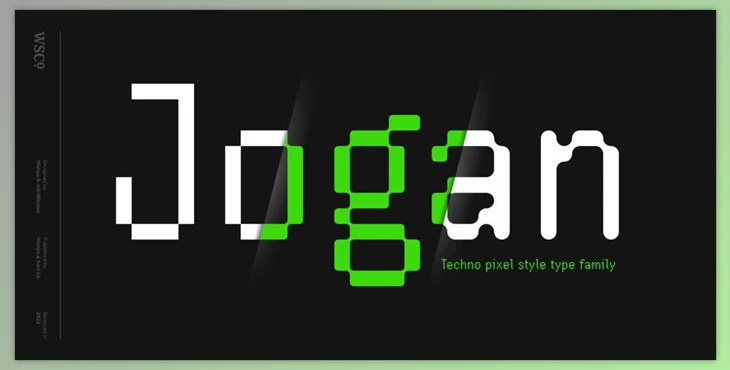
Jogan Font Family:
Influenced by the beginnings of video games in which the graphics were composed of rectangular squares (pixels), Wahyu Wibowo develops a pixel-based typeface, Jogan, but instead of having a medium width, the designer chose to make it smaller, which does not usually found in pixel-style fonts. The style was evolving in the process of development, and the family has four subfamilies:
- Jogan (regular and bold, and monospace)
- Jogan Soft (regular, bold and monospace)
- Jogan Round (regular as well as monospace)
- Jogan Slab (regular and bold)
Each Jogan font style contains 280+ glyphs that cover Western Europe languages:
Afrikaans, Albanian, Asu, Basque, Bemba, Bena, Breton, Catalan, Chiga, Cornish, Danish, Dutch, English, Filipino, French, Friulian, Galician, German, Gusii, Indonesian, Irish, Italian, Kabuverdianu, Kalenjin, Kinyarwanda, Luo, Luxembourgish, Luyia, Machame, Makhuwa-Meetto, Makonde, Malagasy, Manx, Morisyen, North Ndebele, Norwegian Bokmål, Norwegian Nynorsk, Nyankole, Oromo, Portuguese, Quechua, Romansh, Rombo, Rundi, Rwa, Samburu, Sango, Sangu, Scottish Gaelic, Sena, Shambala, Shona, Soga, Somali, Spanish, Swahili, Swedish, Swiss-German, Taita, Teso, Uzbek (Latin), Volapük, Vunjo, Zulu.